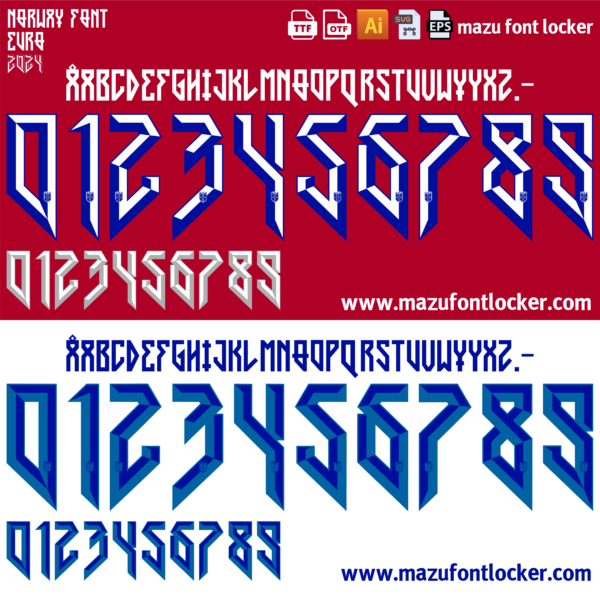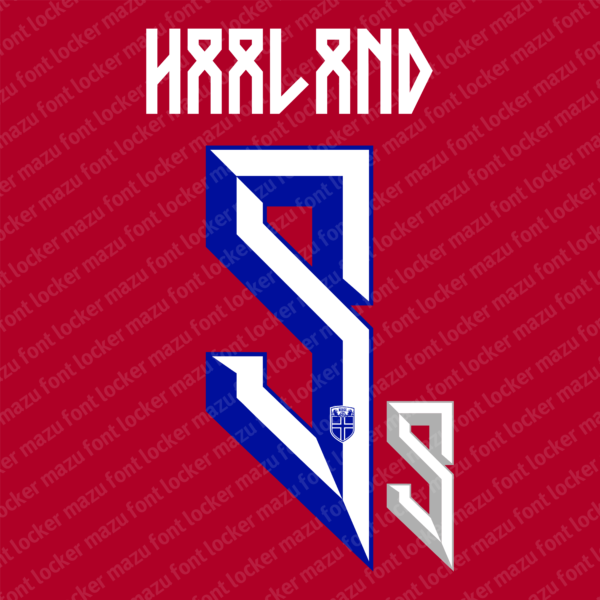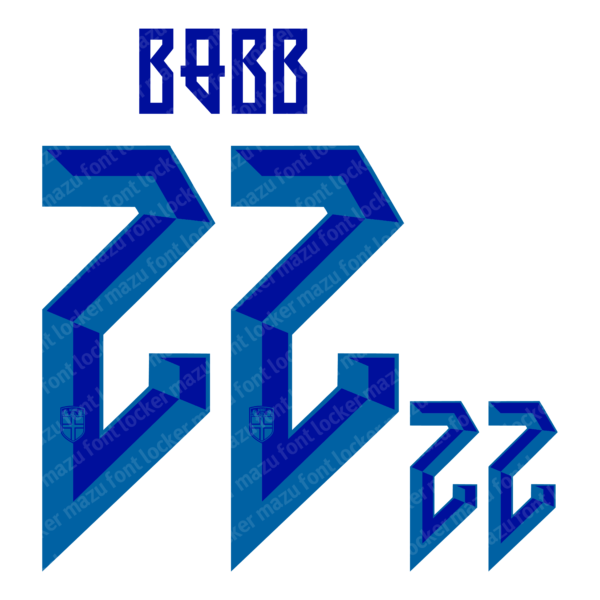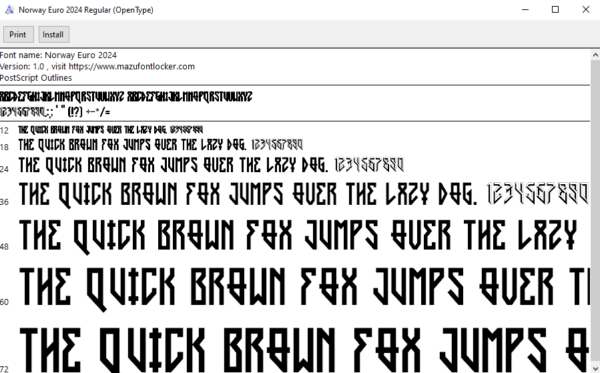
Norway Euro 2024 Home & Away Font Vector (Digital Download)
Norway Euro 2024 font, names and numbers, fully editable VECTOR file for customisation.
Complete design with the Norway Euro 2024 numbering and lettering for the Euro 2024 Match.